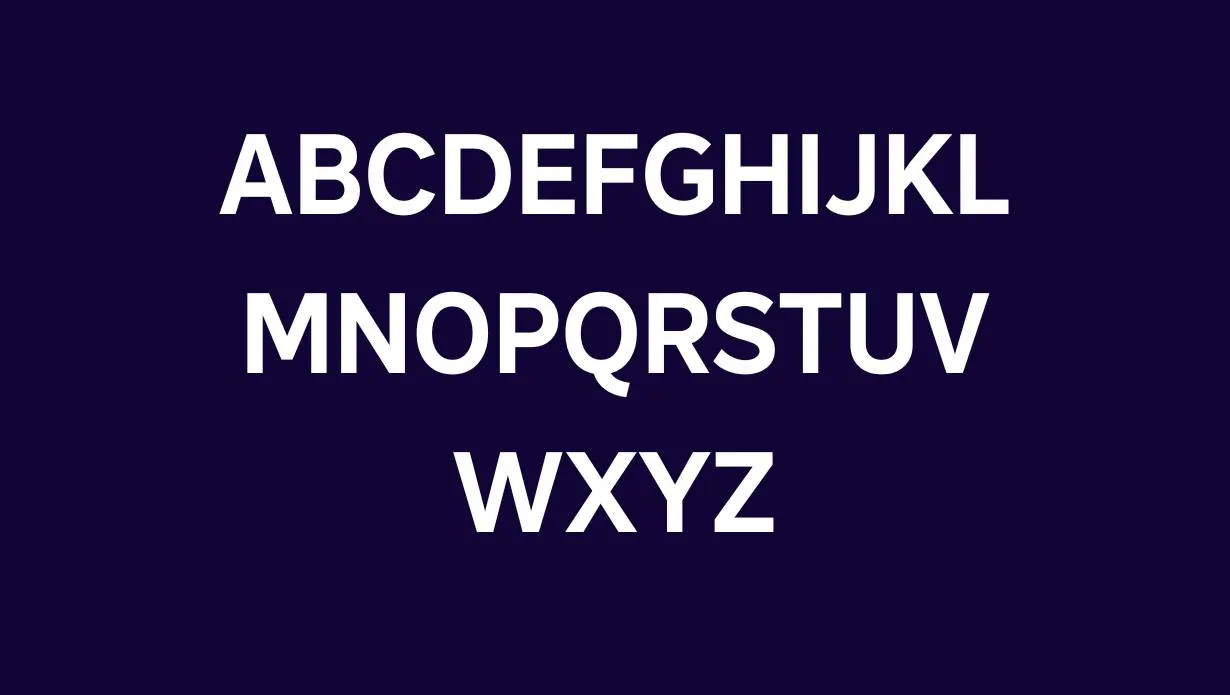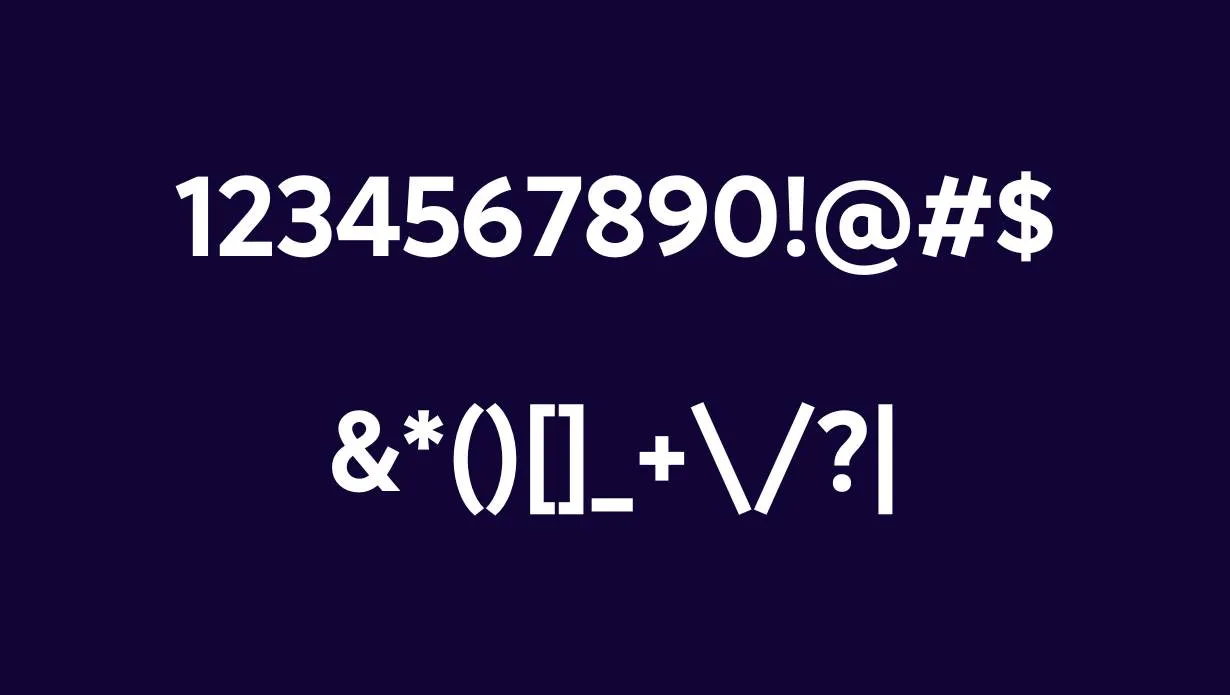
Magdelin font has gothic sans serif characters and it took some inspiration from the humanist class as well which you can easily see in the letterforms. The smooth curves and modern appearance of this font are perfect for all types of design projects.
You can pair this typeface with Billie Kimber Font to give a touch of creativity and elegance. This is a multilingual typeface that includes Latin, English, and Greek.
| Designer | Adam Ladd |